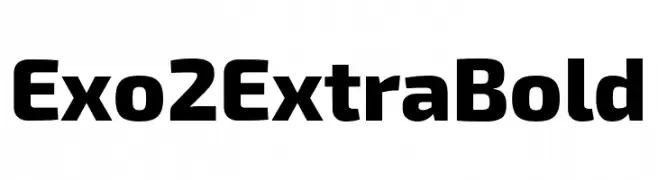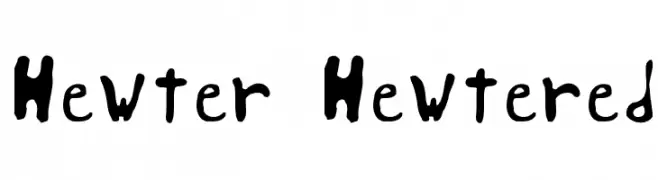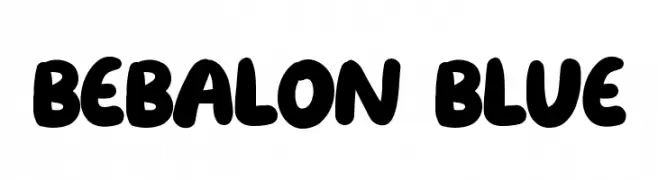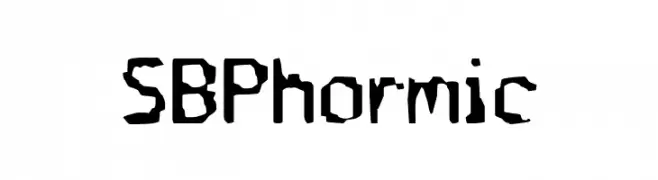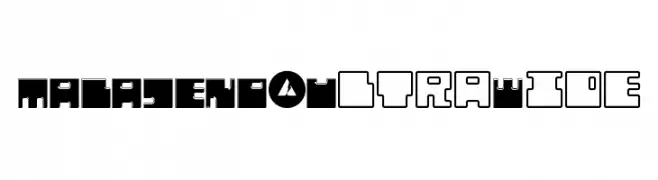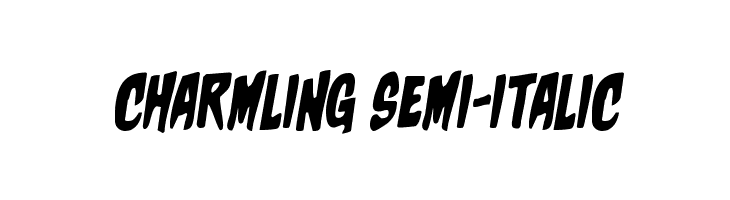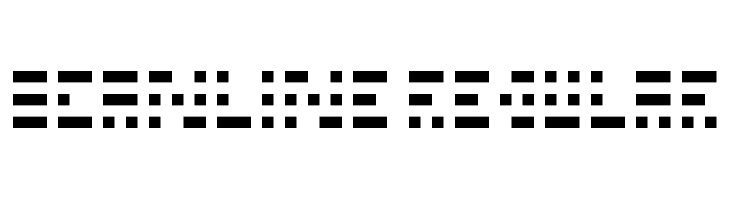
An illustrative and decorative font with themed graphic characters.
A bold, modern typeface with a geometric structure and slightly condensed appearance.
A playful, hand-drawn font with bold, irregular characters and a whimsical style.
A playful, balloon-like font with bold, rounded characters.
A bold, hand-drawn font with rugged, irregular characters.
An elegant, italic script font with a flowing, handwritten style.
A bold, ultra-wide font with geometric shapes and a futuristic feel.
A modern, condensed sans-serif font with a semi-bold weight, ideal for clear and professional text.
A bold, brush-style font with an energetic and handcrafted appearance.
A pixelated, digital watch-inspired font with characters enclosed in watch outlines.